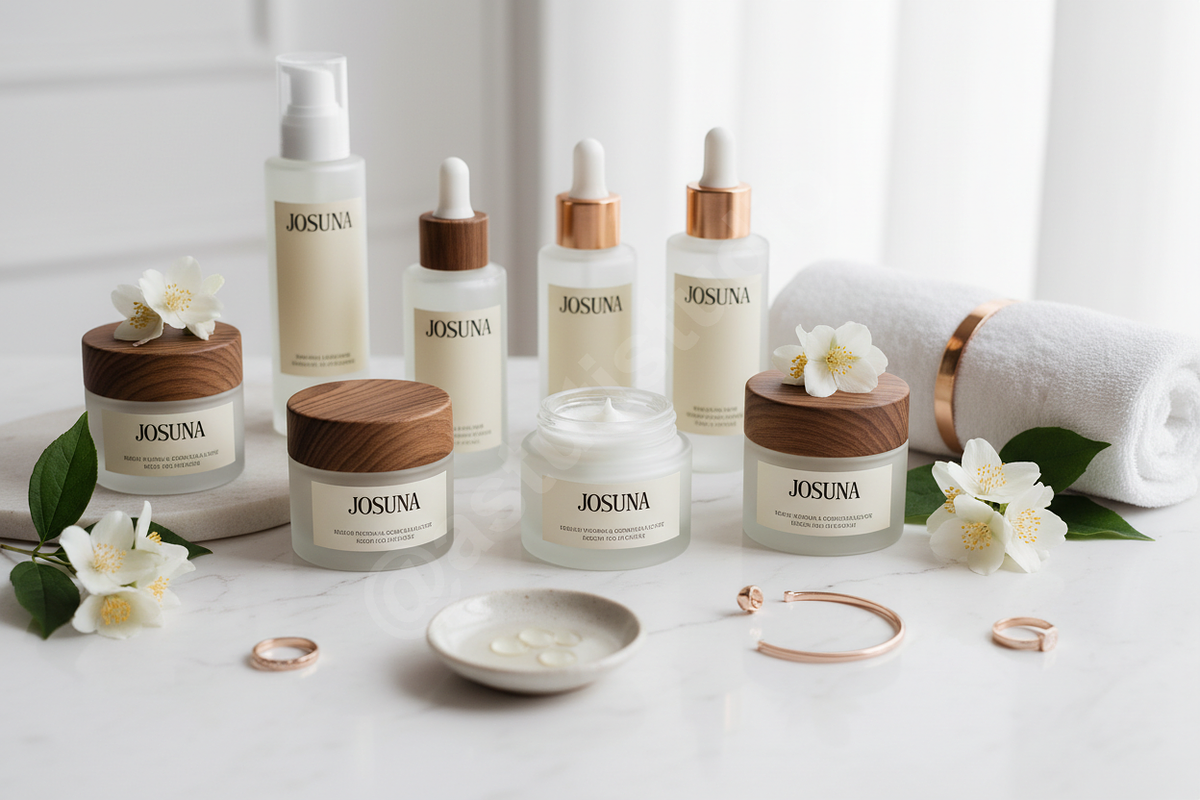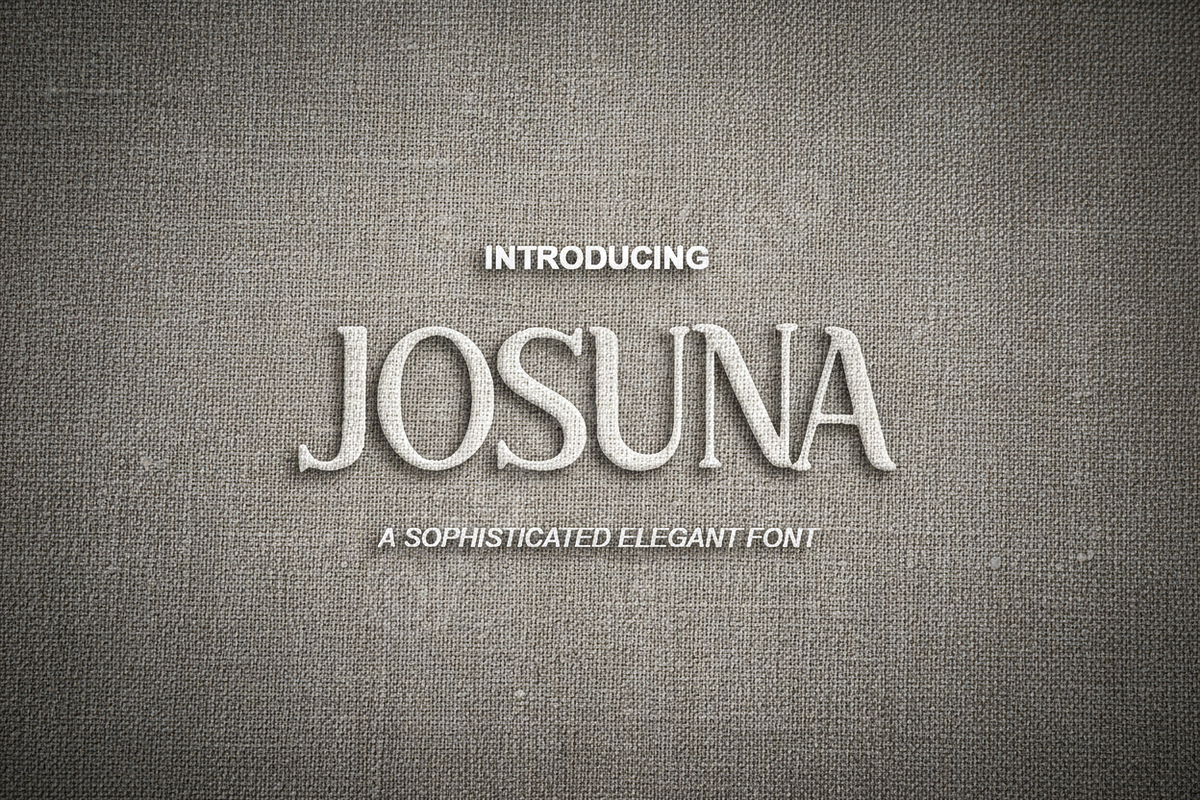
Josuna - A Contemporary Luxury Serif
Introduction Josuna is an elegant serif typeface crafted for premium branding and high-end editorial projects. Its refined silhouette and sharp details offer a sophisticated aesthetic that commands attention while maintaining a timeless appeal. Whether you are designing for luxury fashion, minimalist social media campaigns, or upscale stationery, Josuna provides the perfect balance of modern flair and classic grace.
- Clean, high-contrast serif design
- Sharp terminals for a modern edge
- Optimized for both display and body text
- Comprehensive multilingual support
- Precise kerning for a professional finish
- Full Uppercase and Lowercase alphabet
- Standard Numbers, Punctuation, and Symbols